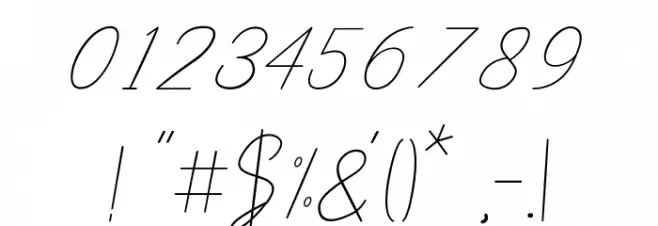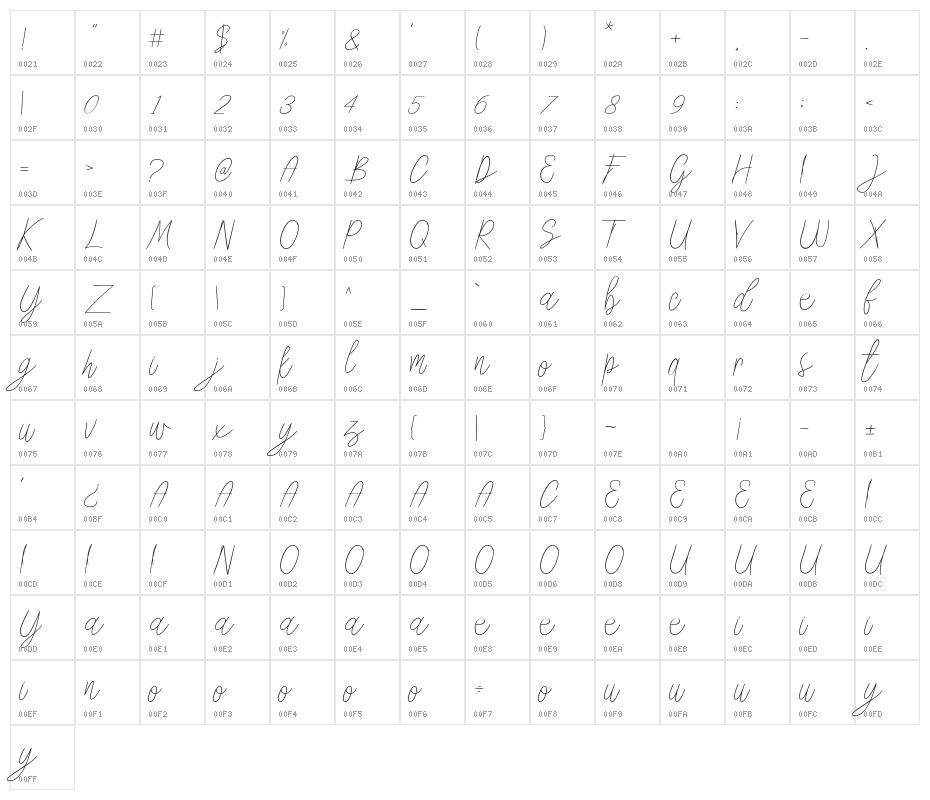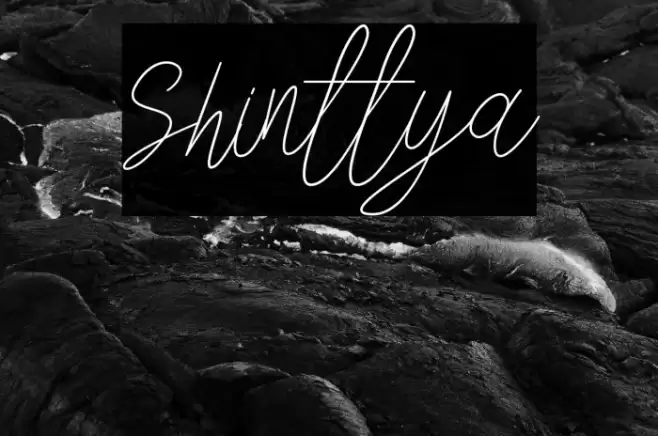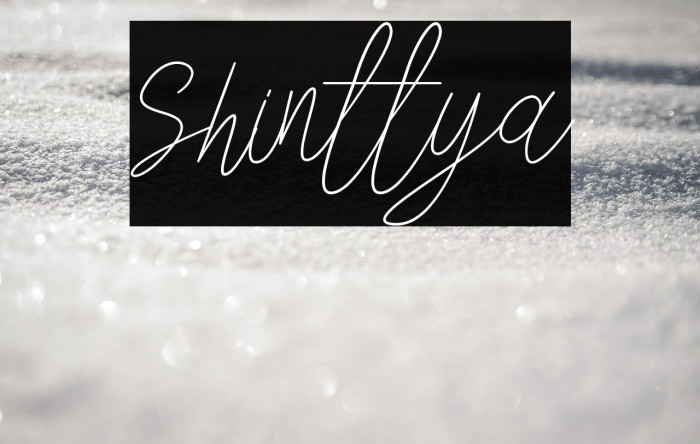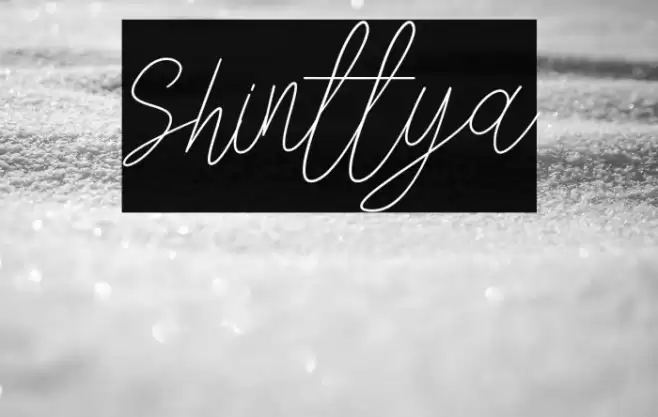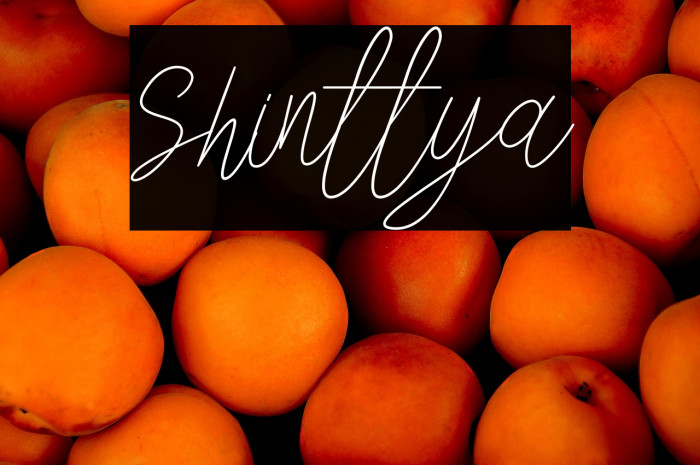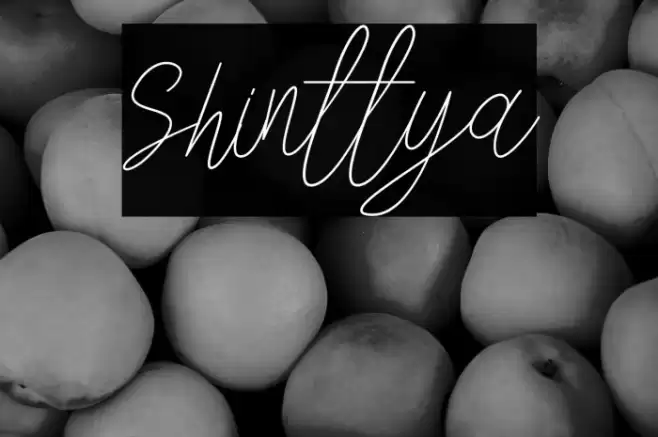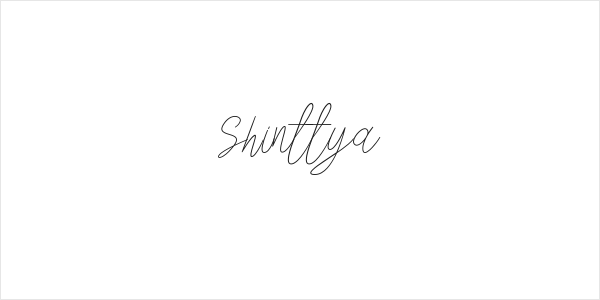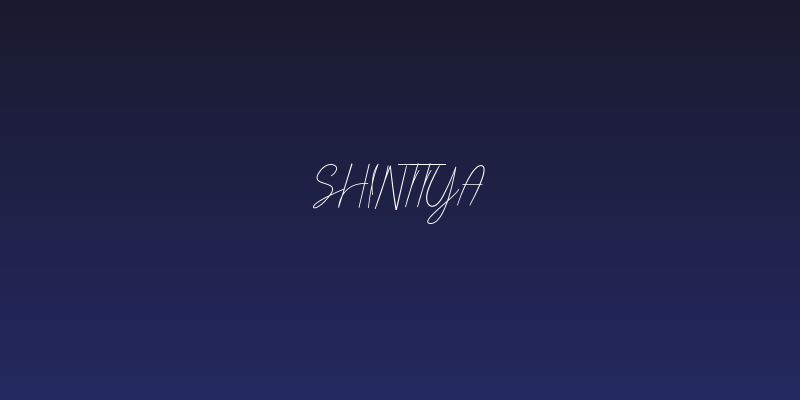
Shinttya Font
Shinttya Description
This font features an elegant and flowing script style, characterized by its thin, delicate strokes and smooth, continuous lines. The uppercase letters are tall and slender, with a slight slant that adds a sense of movement and grace. The lowercase letters are more compact, maintaining the same fluidity and elegance. The numerals are consistent with the overall style, featuring the same thin lines and gentle curves. Special characters are integrated seamlessly, maintaining the font's cohesive appearance. This font exudes a sense of sophistication and refinement, making it ideal for formal invitations, branding, and other projects that require a touch of elegance.
| Overall Style | Elegant, Sophisticated |
| Use Case | Invitations, Branding, Stationery |
| Proposed Projects | Ideal for wedding invitations, luxury branding, elegant stationery, and high-end product packaging. |